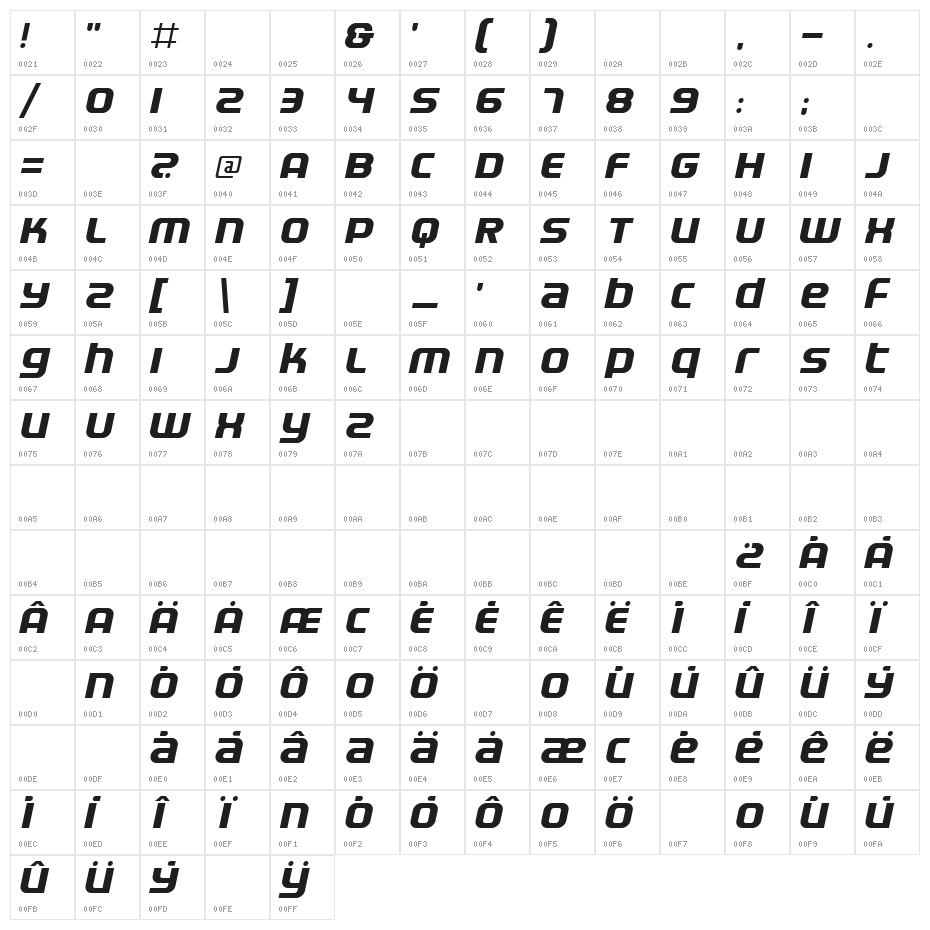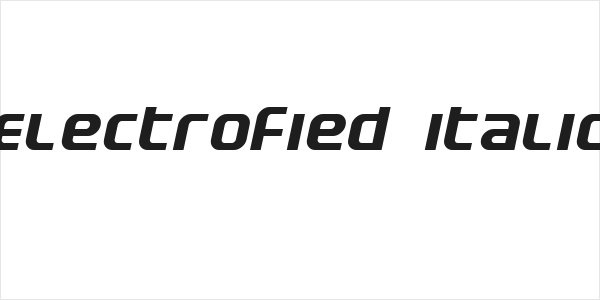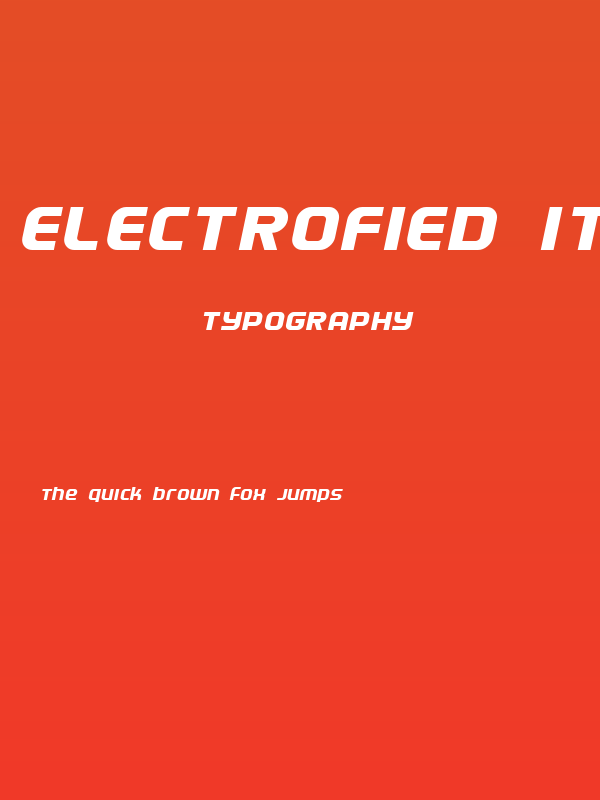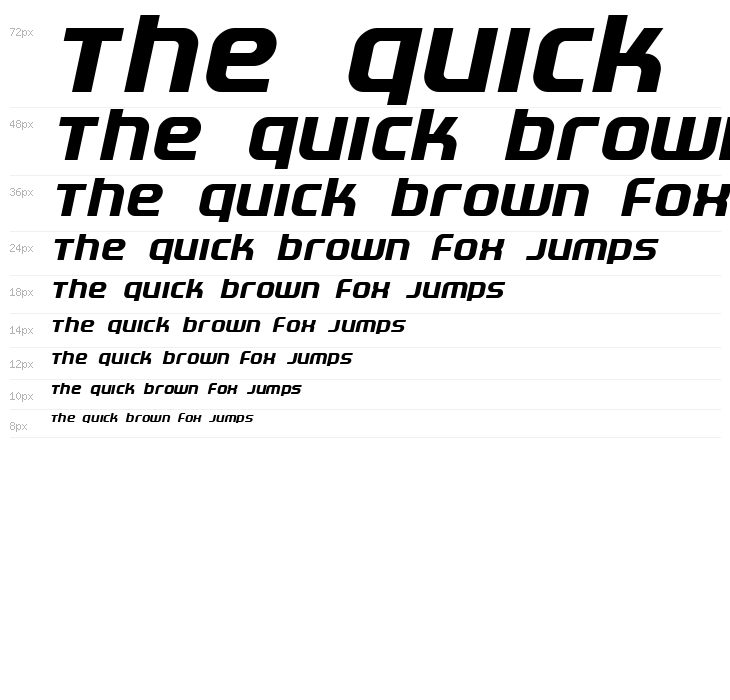
Electrofied Italic Font
Electrofied Italic Description
This font features a modern, italicized style with a sleek and futuristic appearance. The characters are slightly slanted, giving a sense of motion and dynamism. The strokes are consistent in width, providing a uniform look across all letters and numbers. The design is clean and minimalistic, with rounded edges that soften the overall appearance. The font maintains a balanced proportion, making it highly legible even at smaller sizes. Special characters are designed to match the overall aesthetic, ensuring a cohesive look.
| Use Case | Headlines, Logos, Digital interfaces |
| Proposed Projects | Ideal for technology branding, sci-fi themed projects, modern advertising, and digital interfaces. |